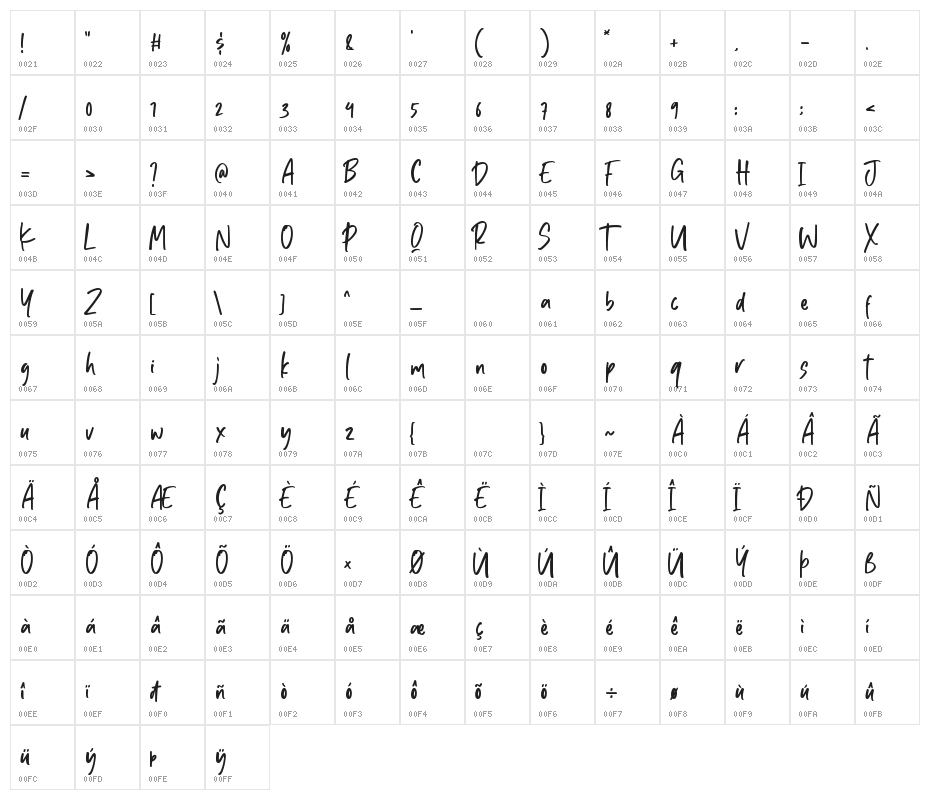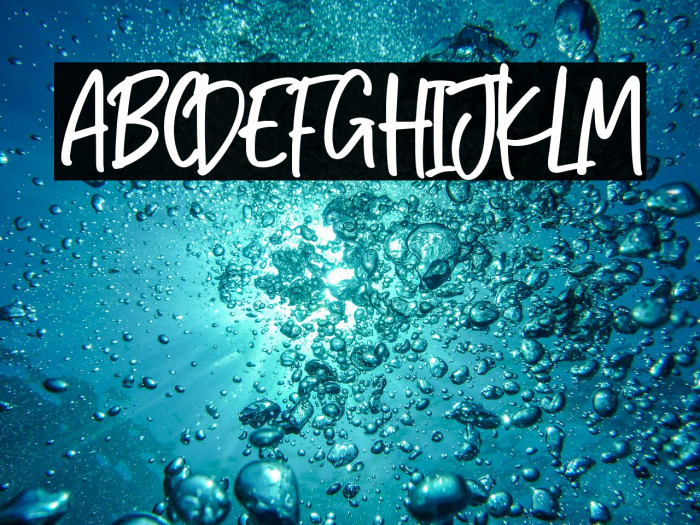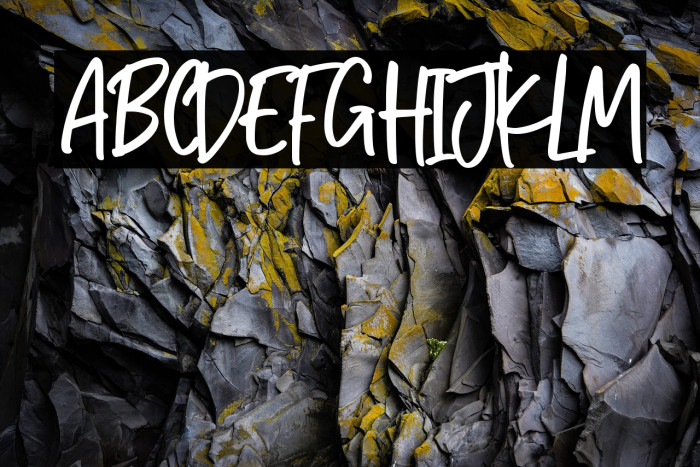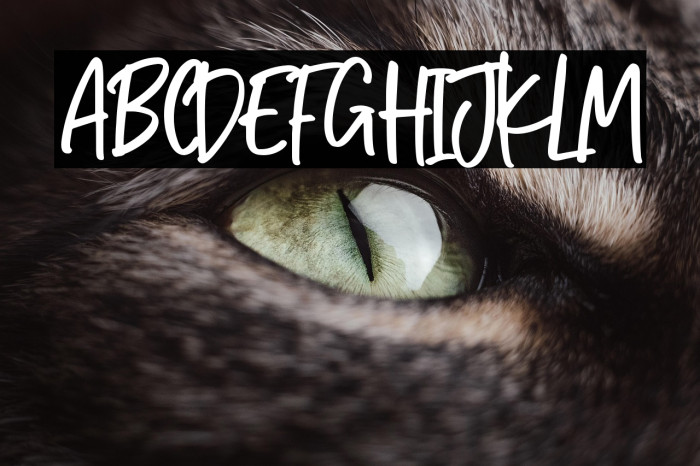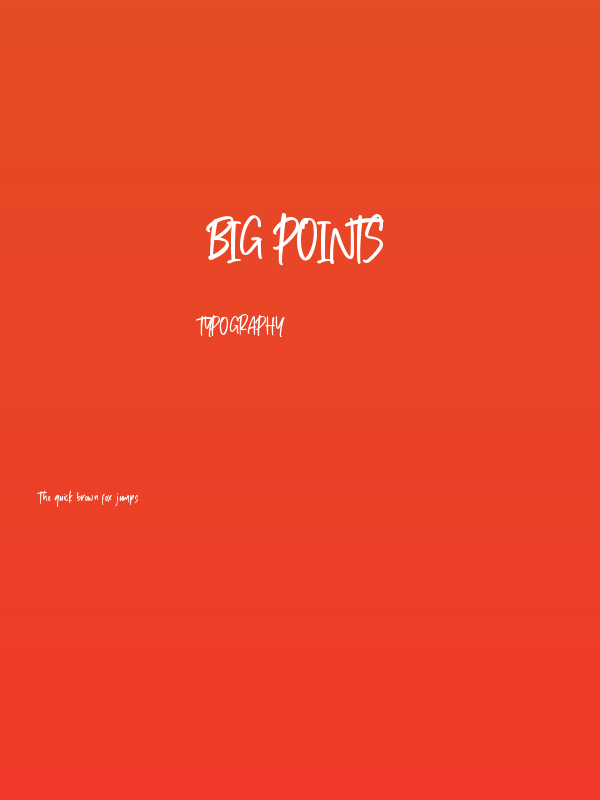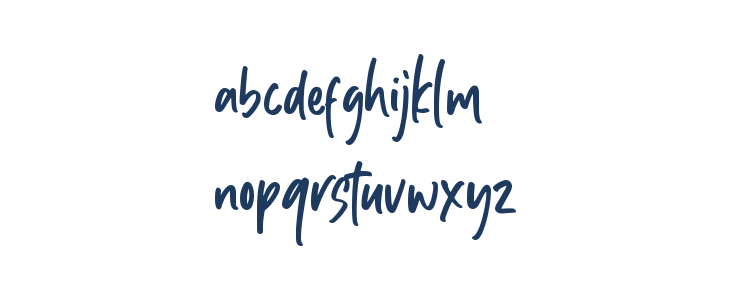
BiG PoiNts Font
BiG PoiNts Description
This font features a bold, handwritten style with a playful and energetic feel. The letters are slightly slanted, giving it a dynamic and informal appearance. The strokes are thick and consistent, adding to the boldness of the design. The uppercase letters are tall and commanding, while the lowercase letters maintain a cohesive flow. Numbers and special characters are crafted with the same lively spirit, ensuring a uniform look across all elements. The font's casual and approachable style makes it suitable for a variety of creative applications.